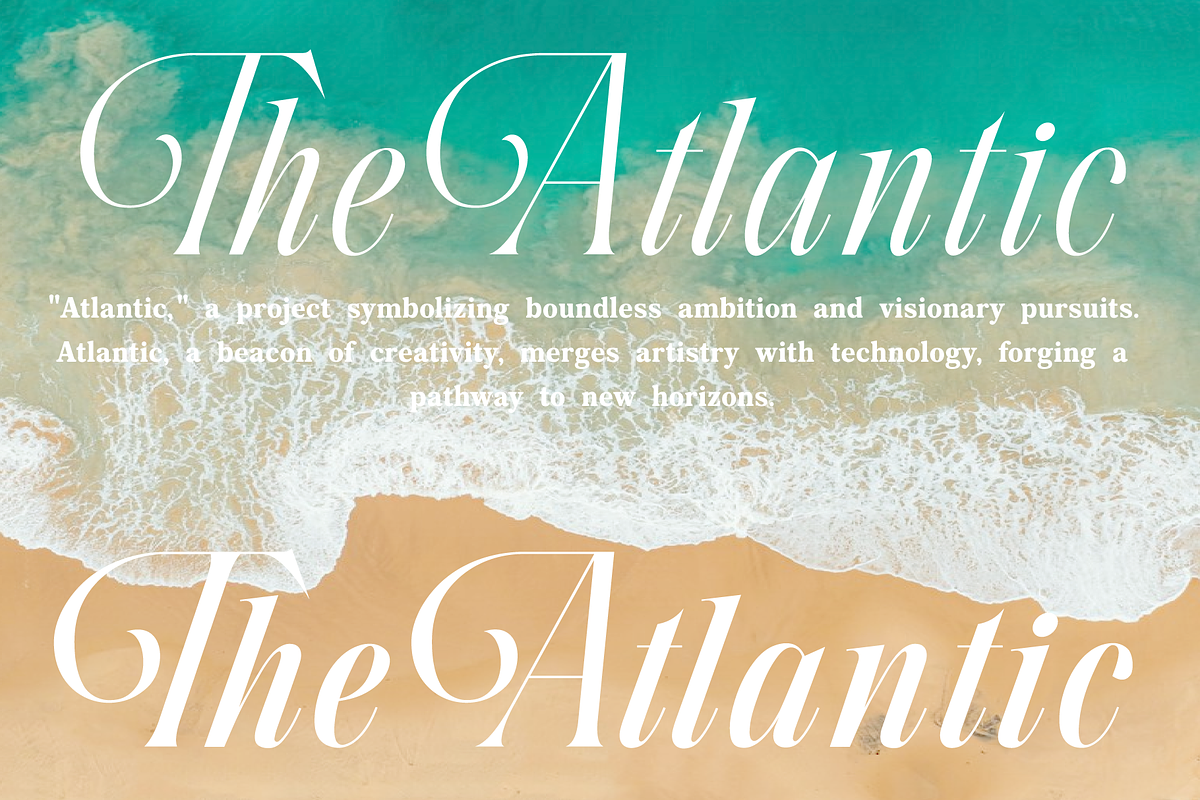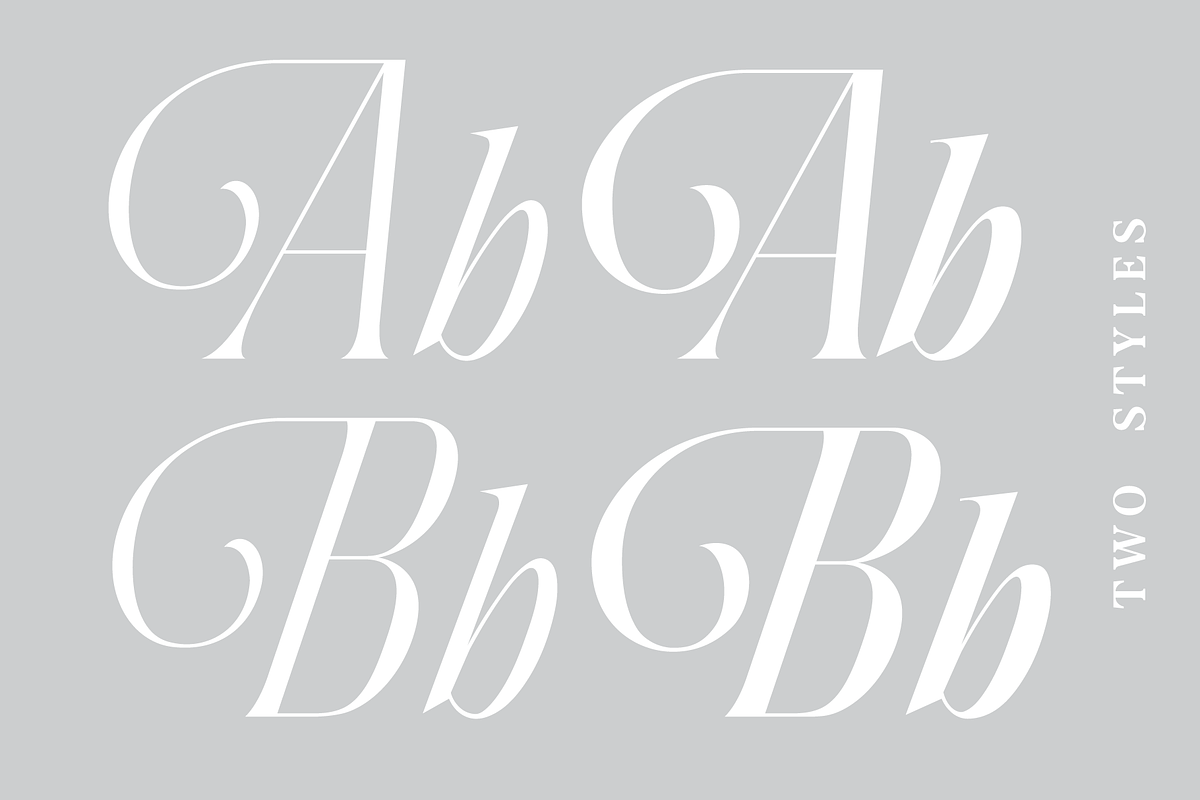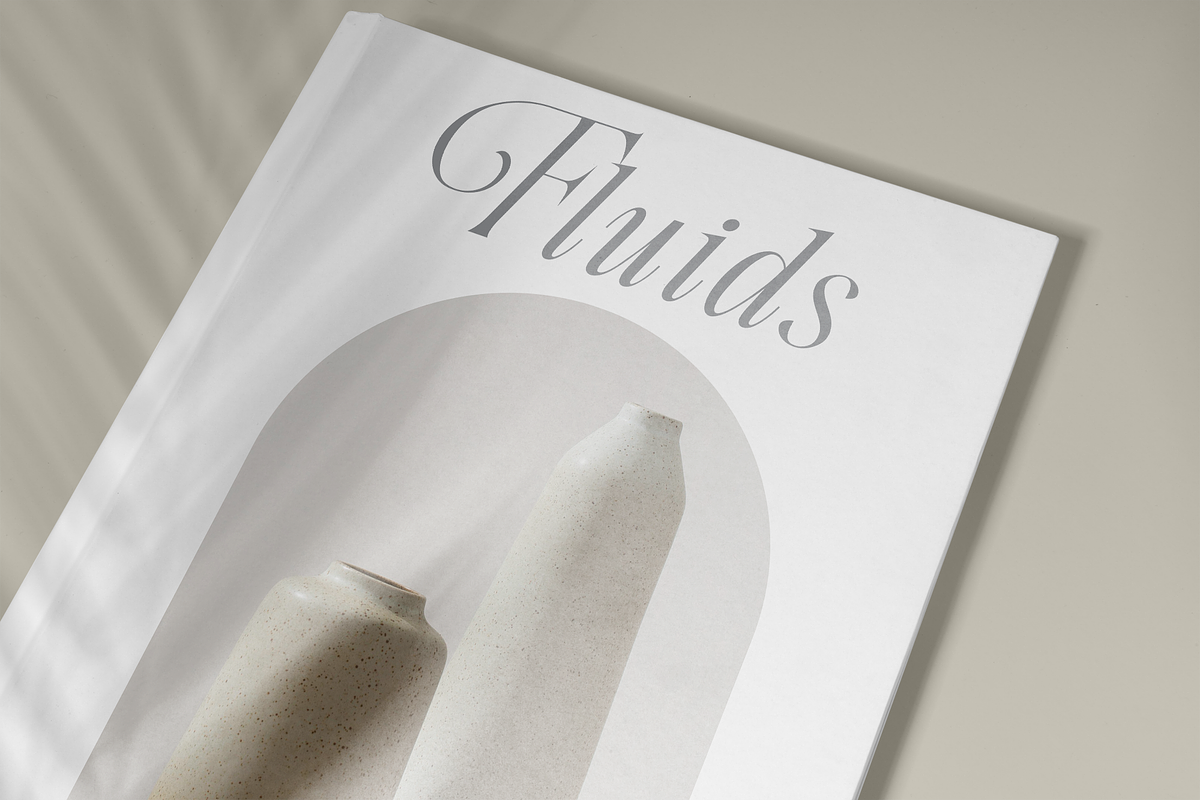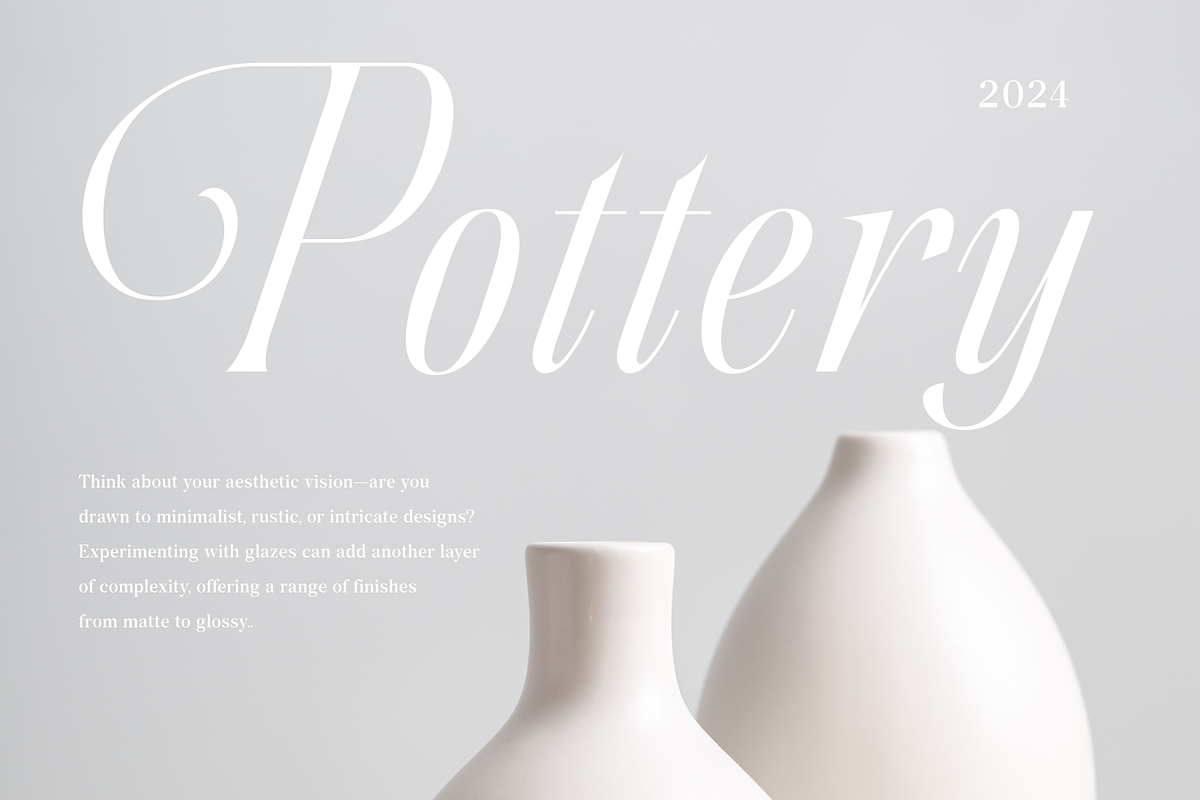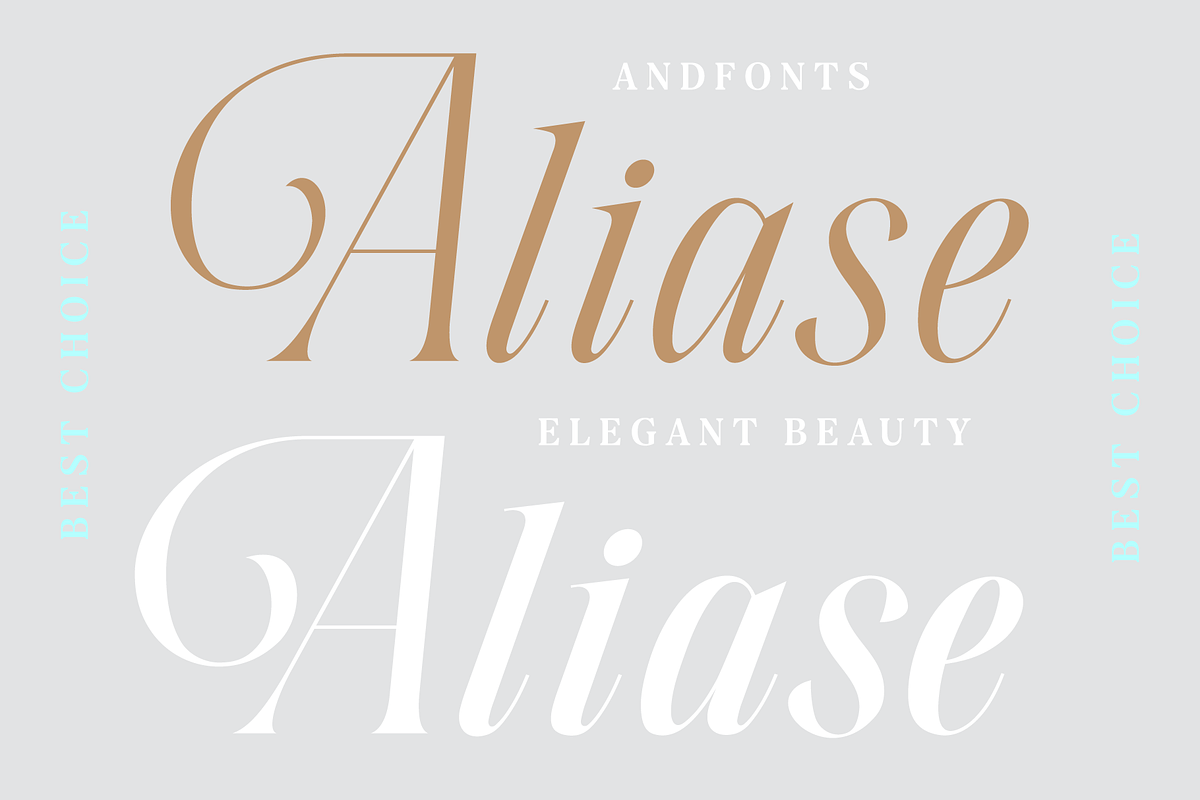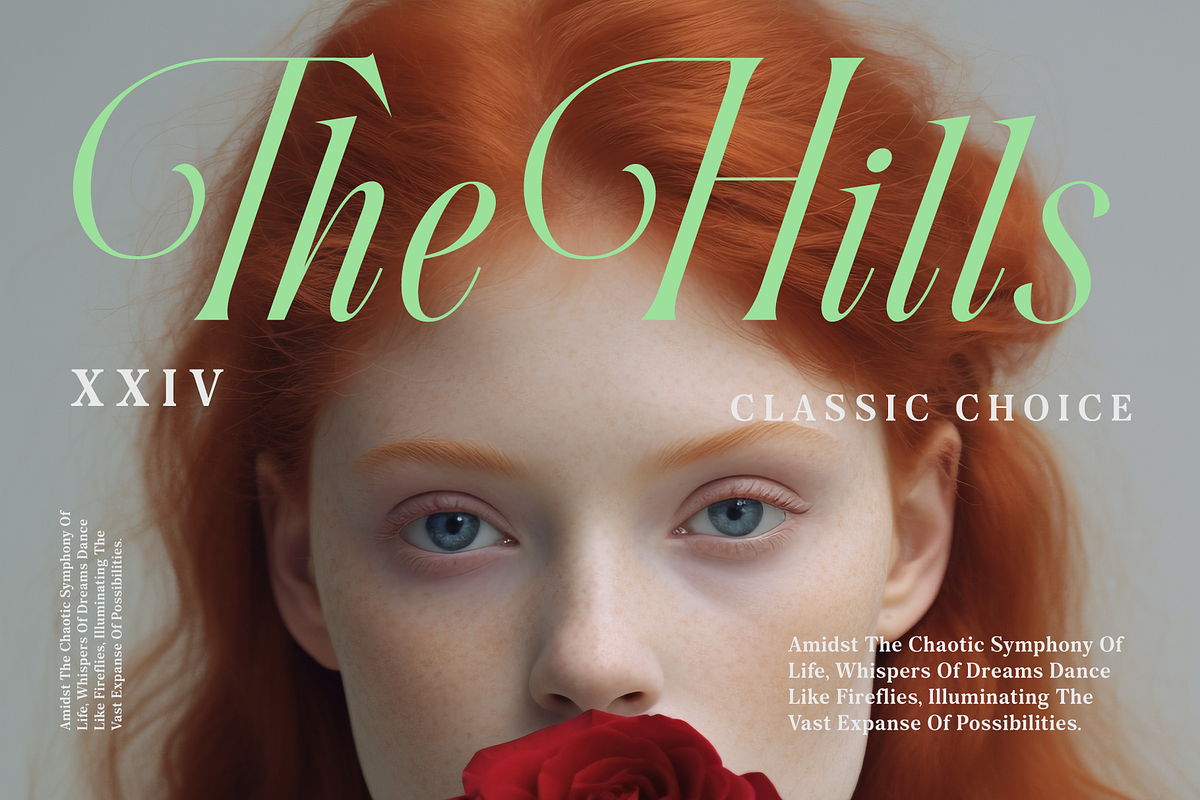
Aliase: Cursive Modern Font
Aliase: Cursive Modern Font combines the elegance of cursive with a contemporary twist. Its flowing lines and sleek curves offer a sophisticated look, perfect for projects that demand both style and readability. Create your design with 3 styles.